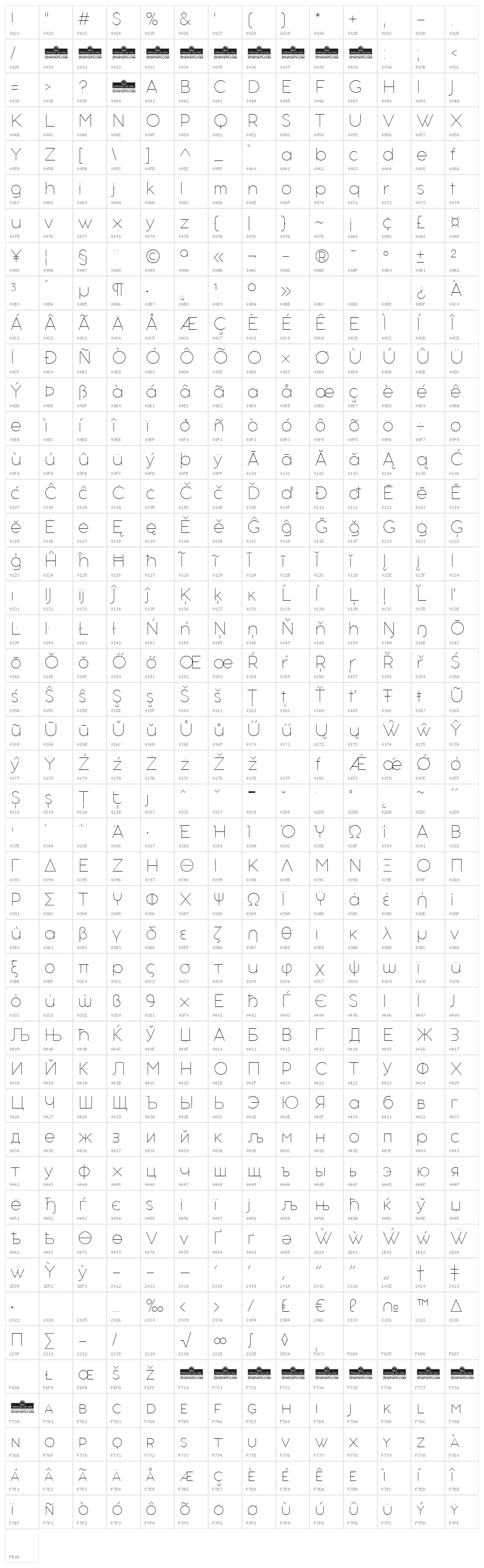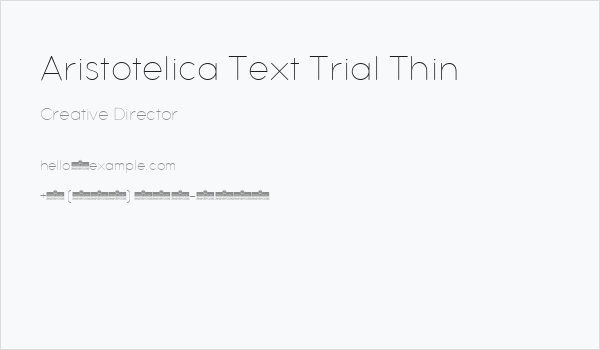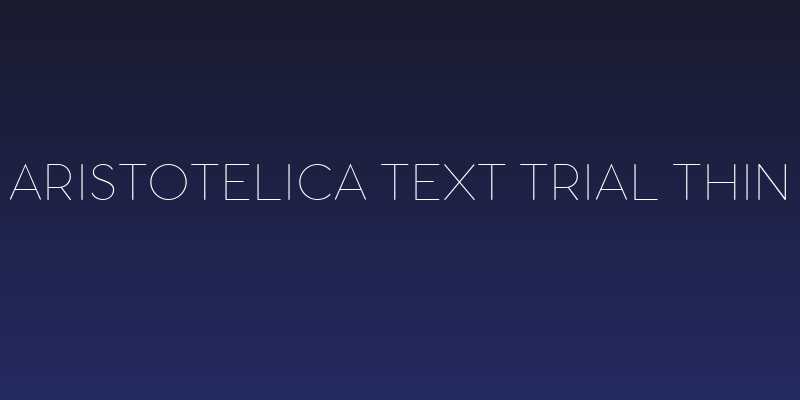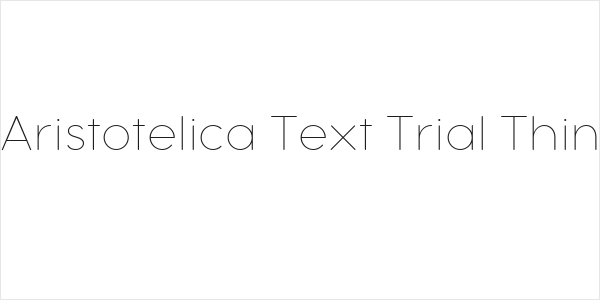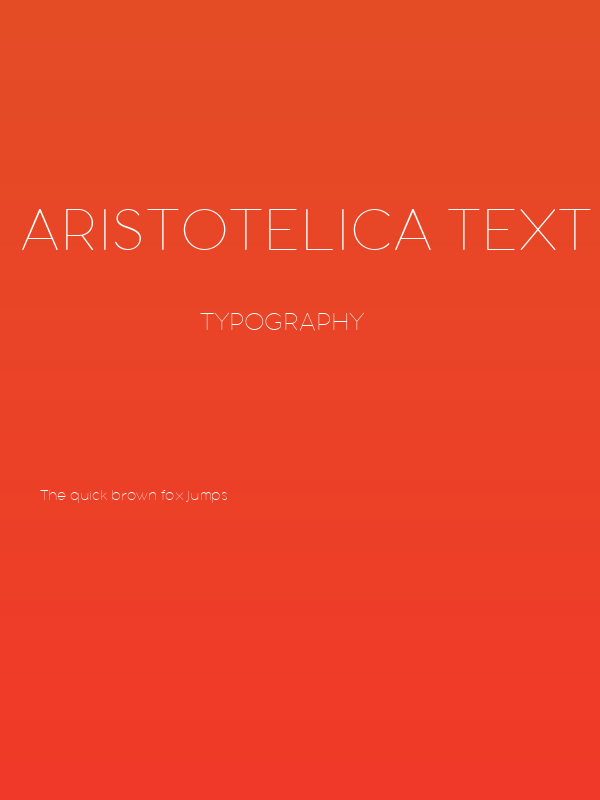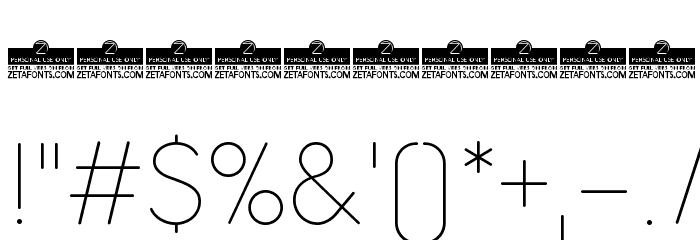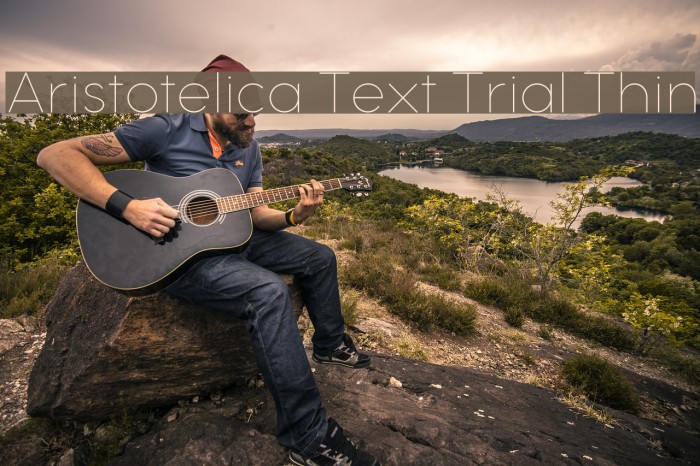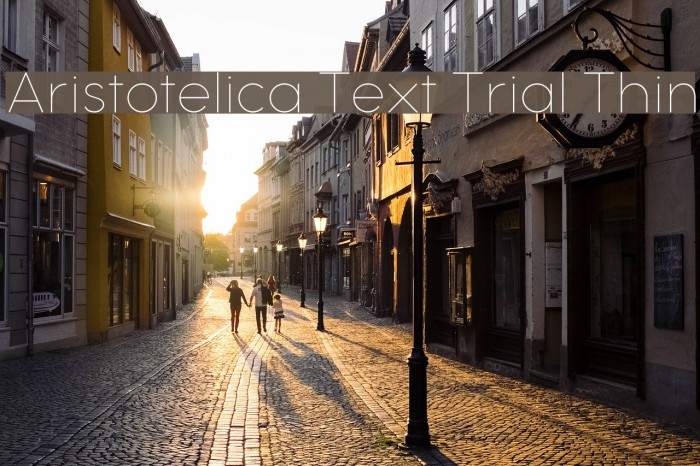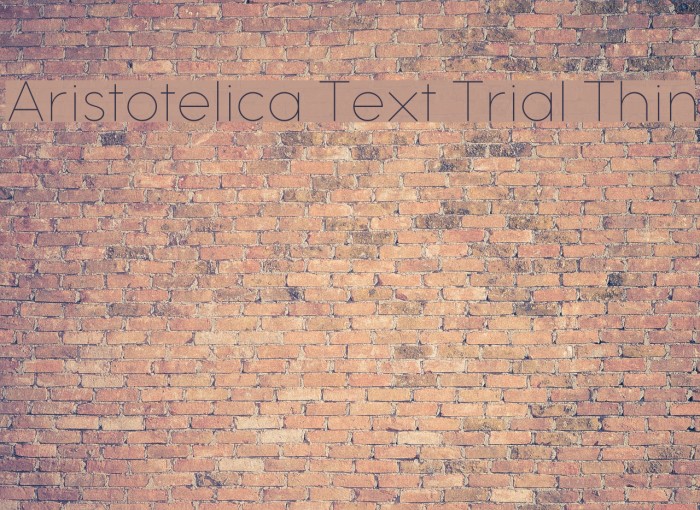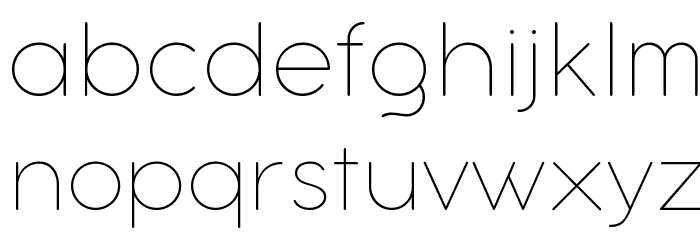
Aristotelica Text Trial Thin Font
Aristotelica Text Trial Thin Description
This font exhibits a clean and minimalist design with thin, uniform strokes that create a sense of elegance and modernity. The characters are well-proportioned, featuring a geometric sans-serif style that emphasizes clarity and readability. The uppercase and lowercase letters maintain a consistent height and width, contributing to a harmonious appearance. The numerals and special characters are designed to match the overall aesthetic, ensuring a cohesive look across all text elements. This font's simplicity and precision make it suitable for a wide range of applications.